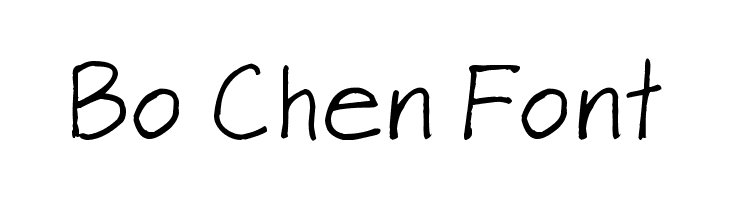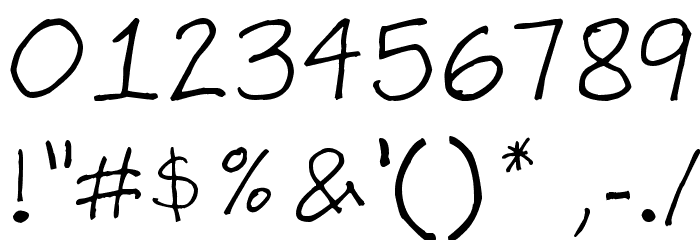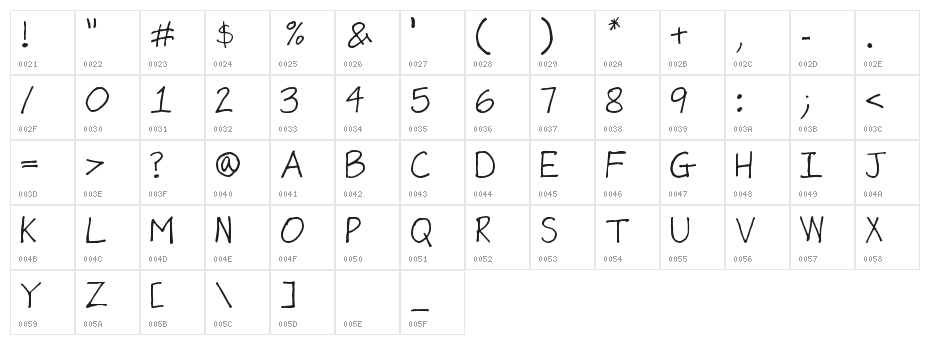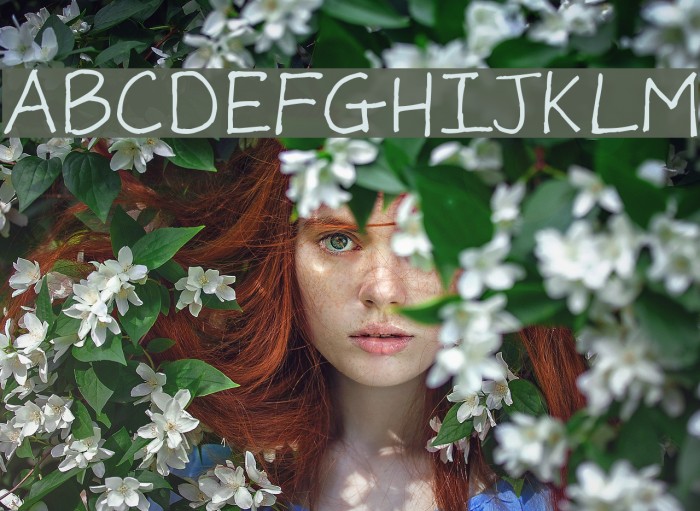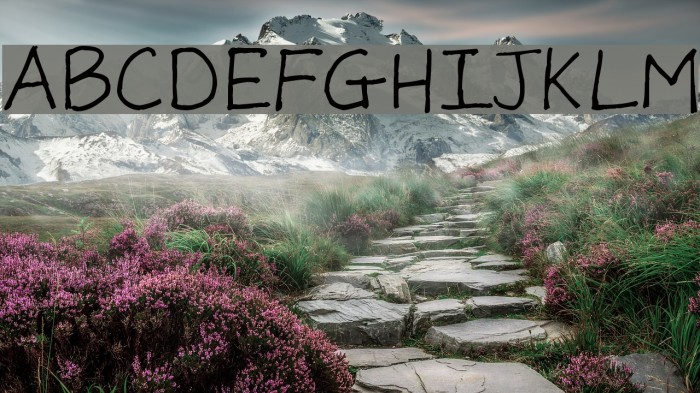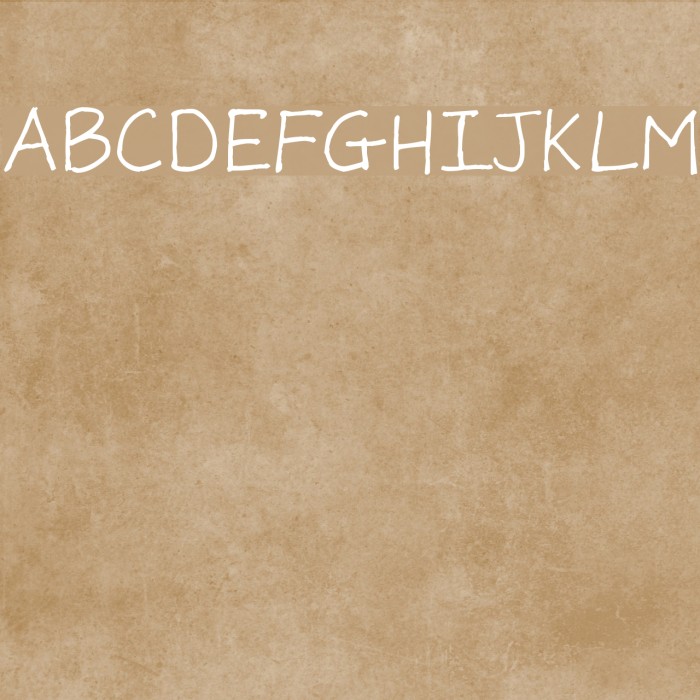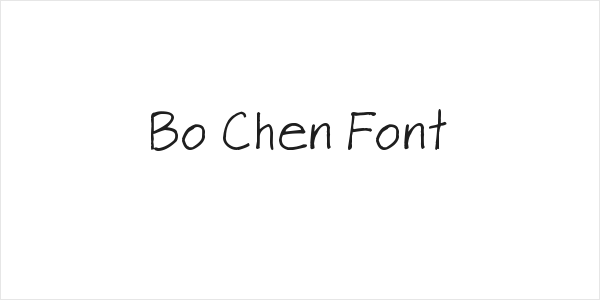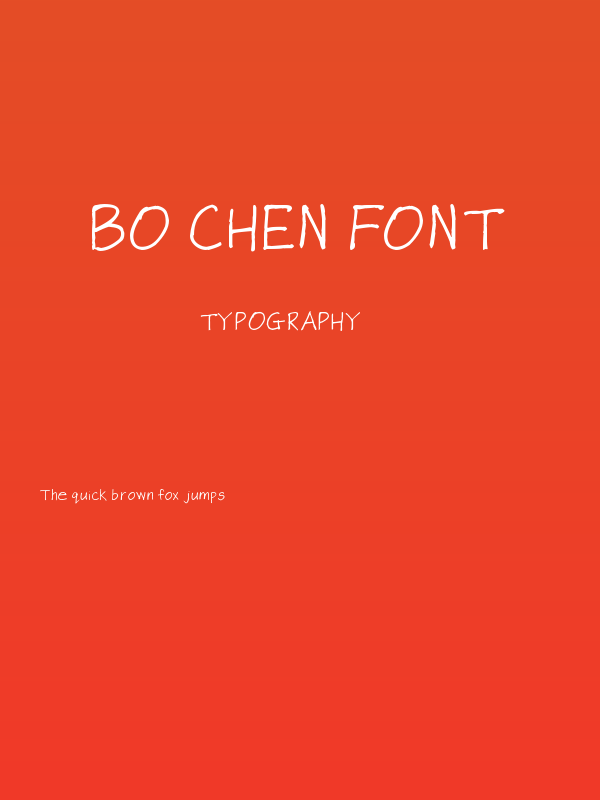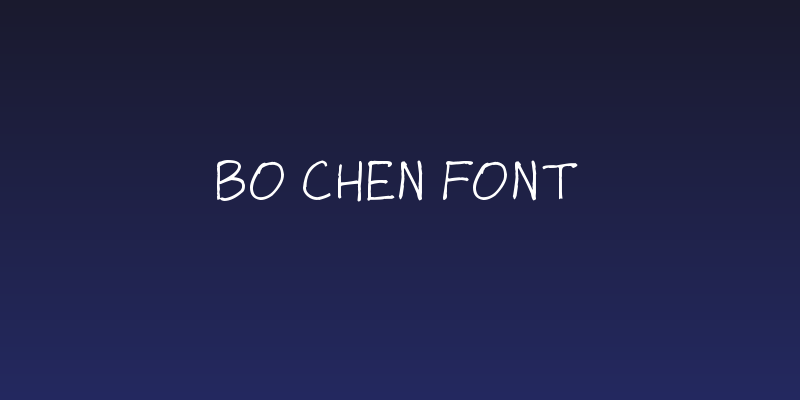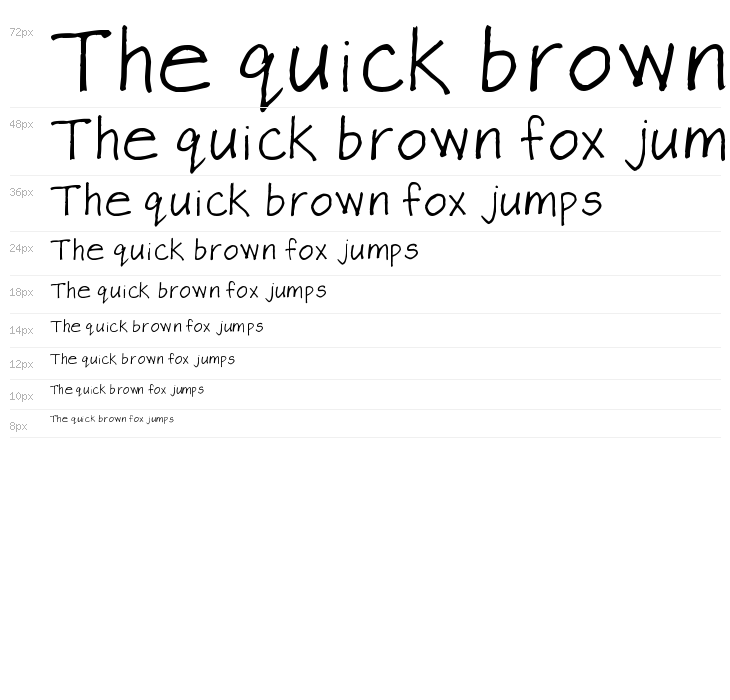
Bo Chen Font Description
This font features a playful and informal handwritten style, characterized by its uneven strokes and casual appearance. The letters are slightly irregular, giving it a personal and approachable feel. The uppercase and lowercase letters maintain a consistent style, with rounded edges and a slight tilt that adds to its charm. The numerals and special characters follow the same informal aesthetic, making it versatile for various creative projects. Its unique style is perfect for adding a personal touch to designs.